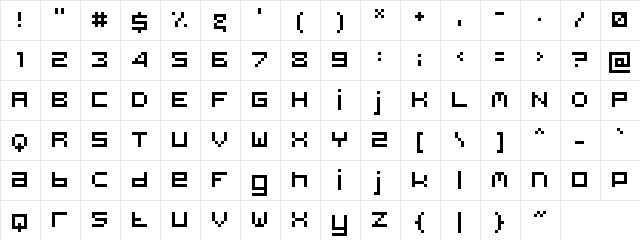
AmazNuNezhayu... Regular
Design Context for AmazNuNezhayu... Typeface
AmazNuNezhayu... takes a measured approach to typography — its balanced proportions and neutral character make it a reliable workhorse for both digital and print work.